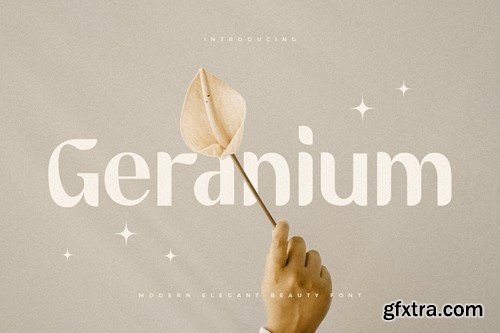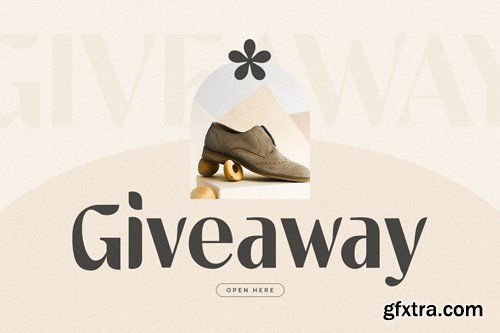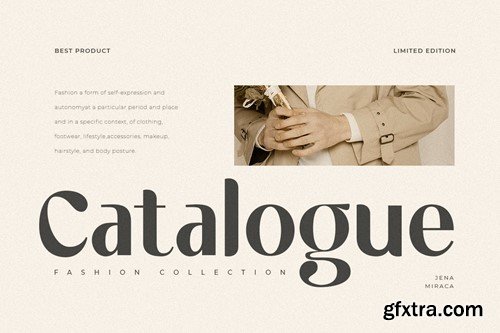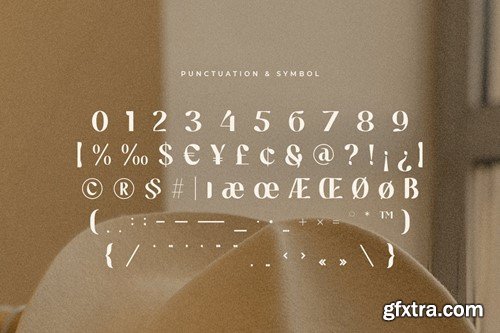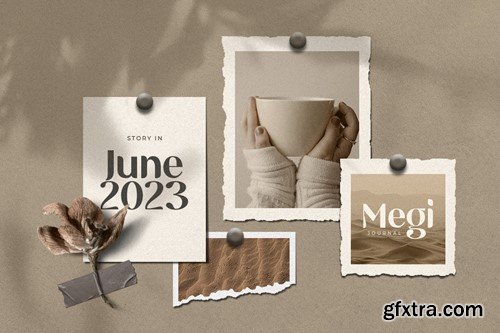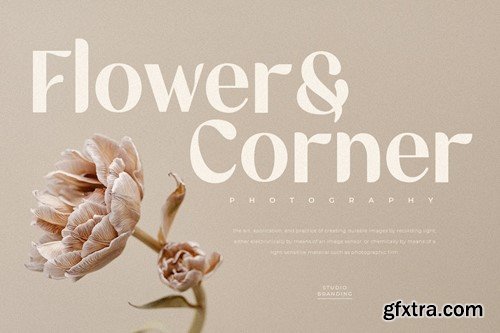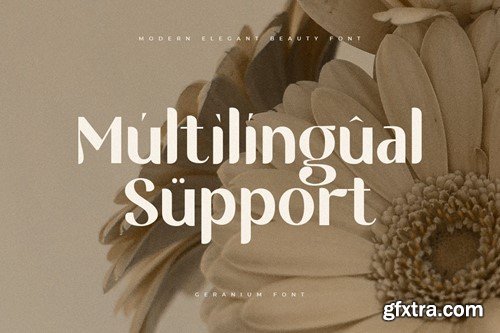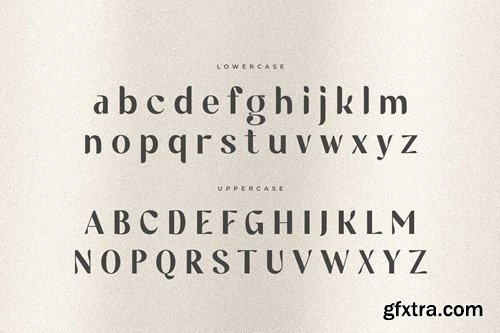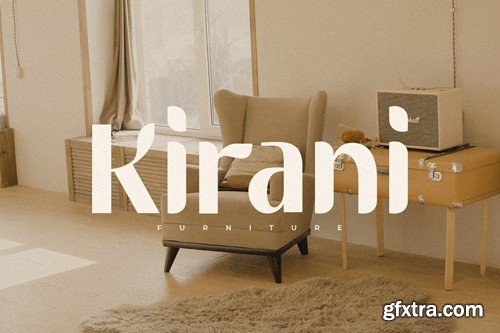
佳人 - 现代优雅之美字体 QJUTGZA
Geranium - Modern Elegant Beauty Font QJUTGZA
Geranium - Modern Elegant Beauty Font
A Modern font that we created special for unique branding needs, with minimalist and high-contrast shape will be ready to add value of your brand. It so nice to leverage designer or product owner that need solutions to make their design look more unique and modern. And specially for this font, We prepared any unique characters to help you create unlimited variations for your creative needs.
Geranium Modern Elegant Beauty Font ready with:
• Unique Premium Font Characters
• Ready with Lowercase and Uppercase characters